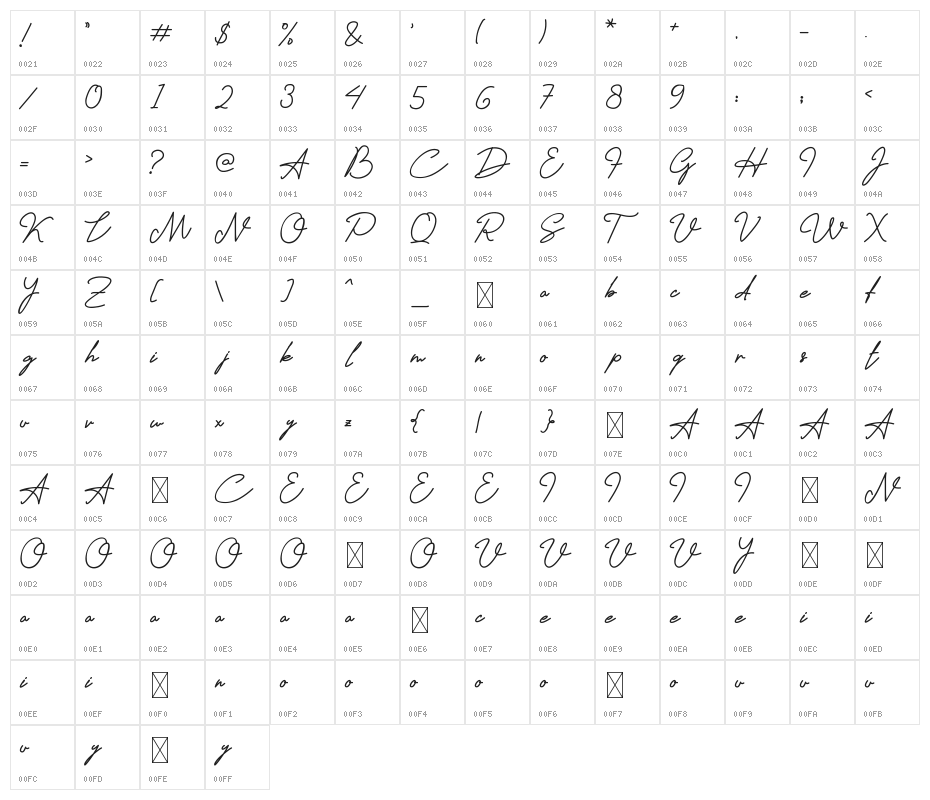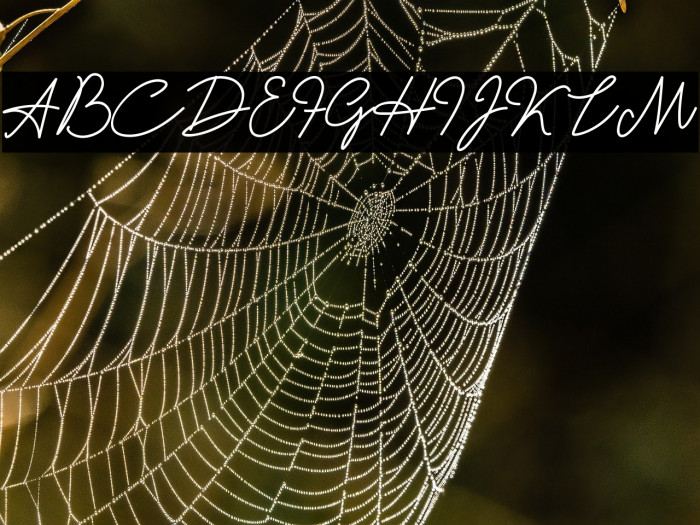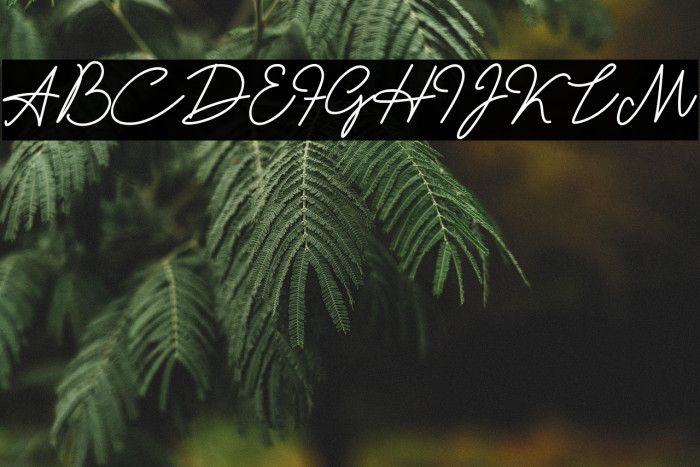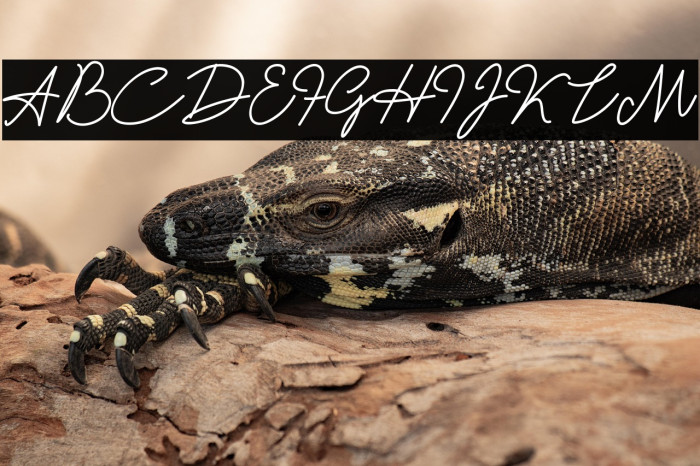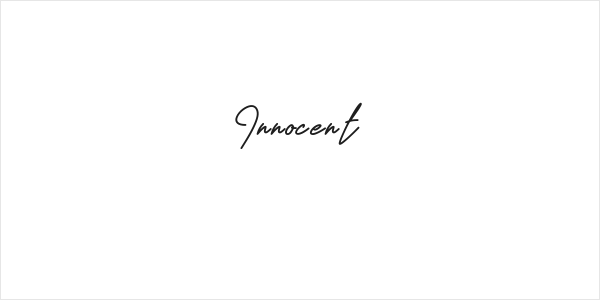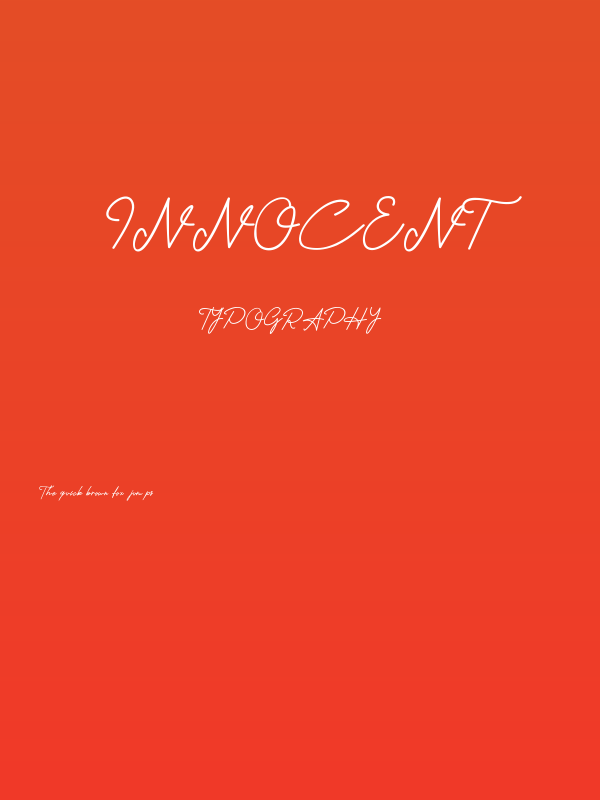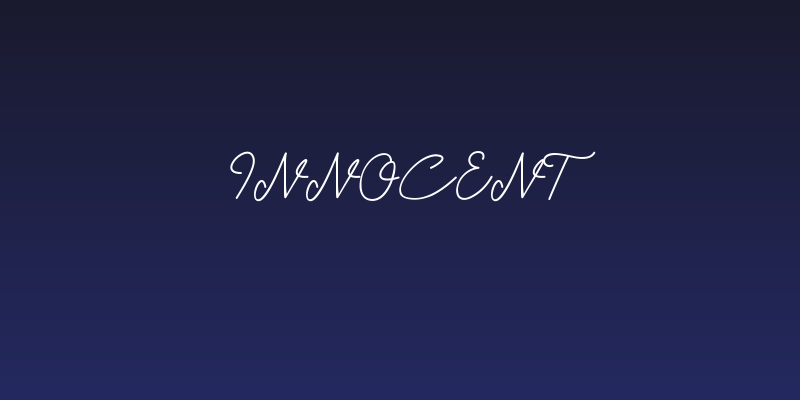
Innocent Font
Innocent Description
This font features a flowing, cursive style that mimics elegant handwriting. The uppercase letters are gracefully connected, while the lowercase letters maintain a smooth, continuous flow. The numerals and special characters complement the script with a slightly more structured appearance, yet still retain the overall fluidity. The strokes are consistent in thickness, providing a harmonious look across all characters. This font exudes a sense of sophistication and personal touch, making it ideal for projects that require a handwritten aesthetic.
| Overall Style | Elegant, Handwritten |
| Proposed Projects | Ideal for wedding invitations, greeting cards, personal branding, and any design requiring a personal, elegant touch. |